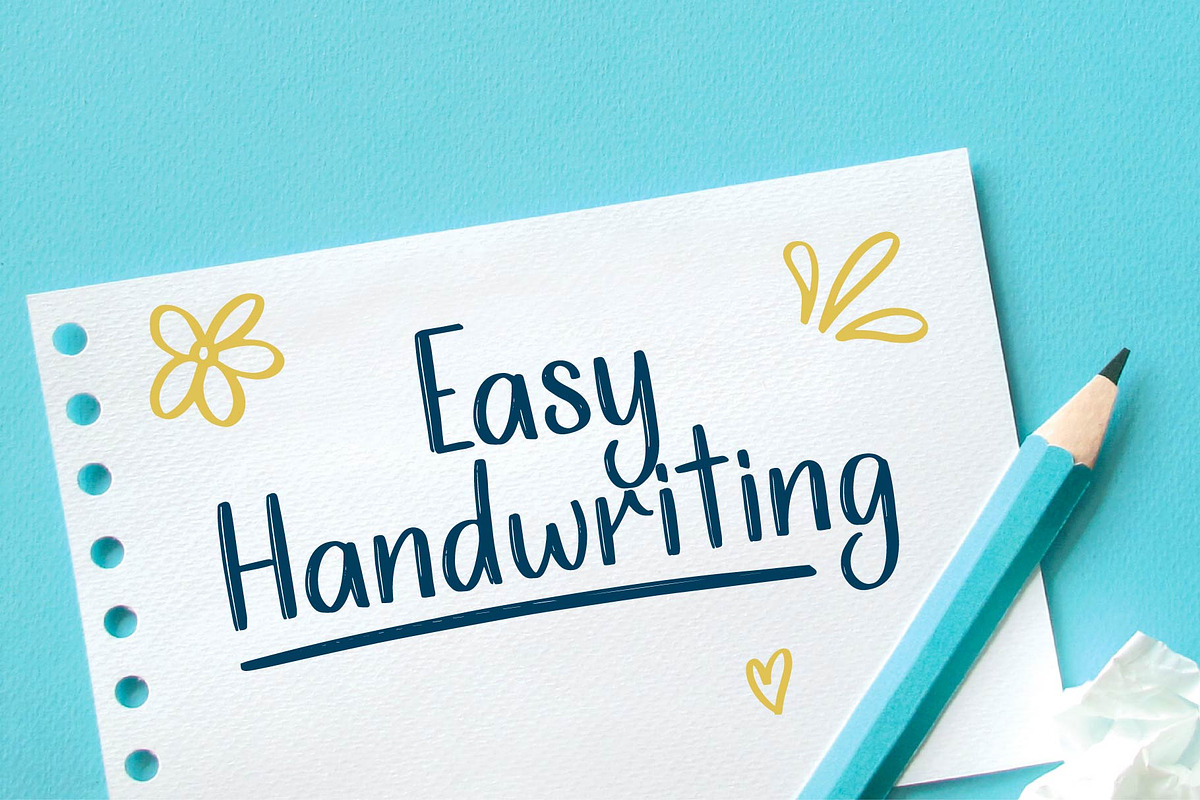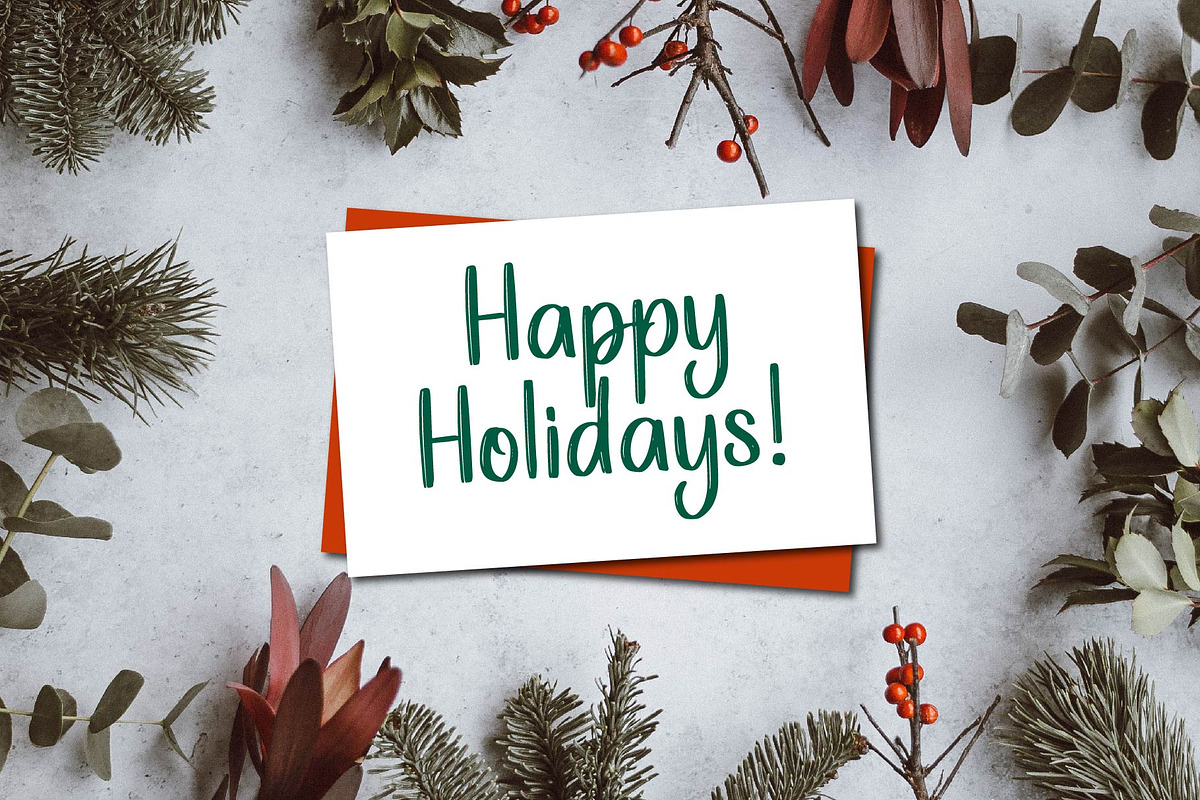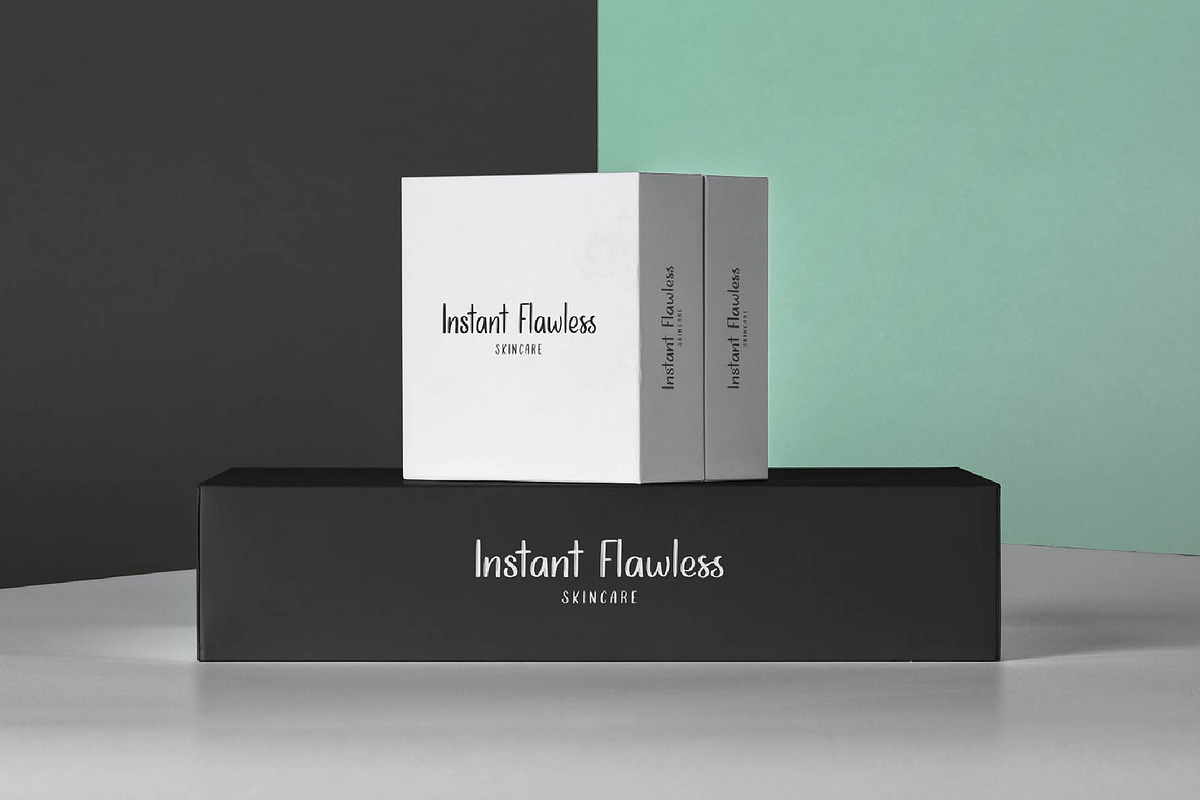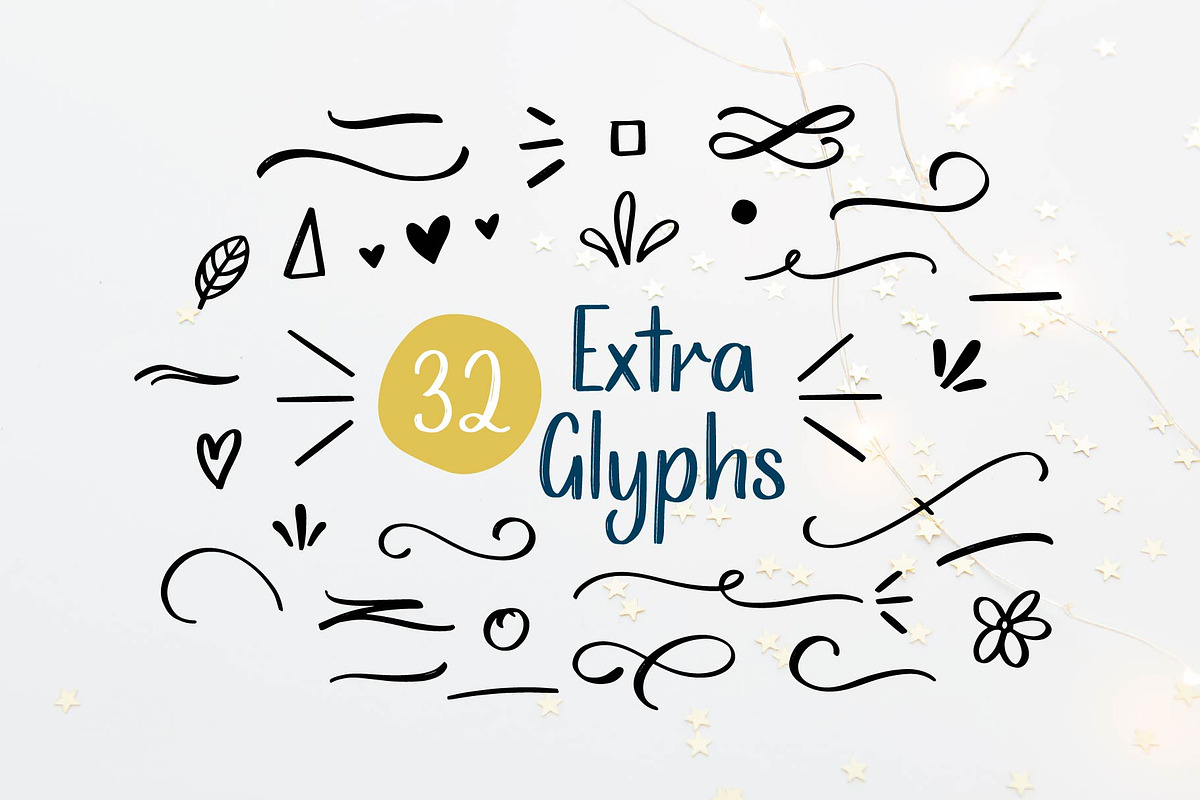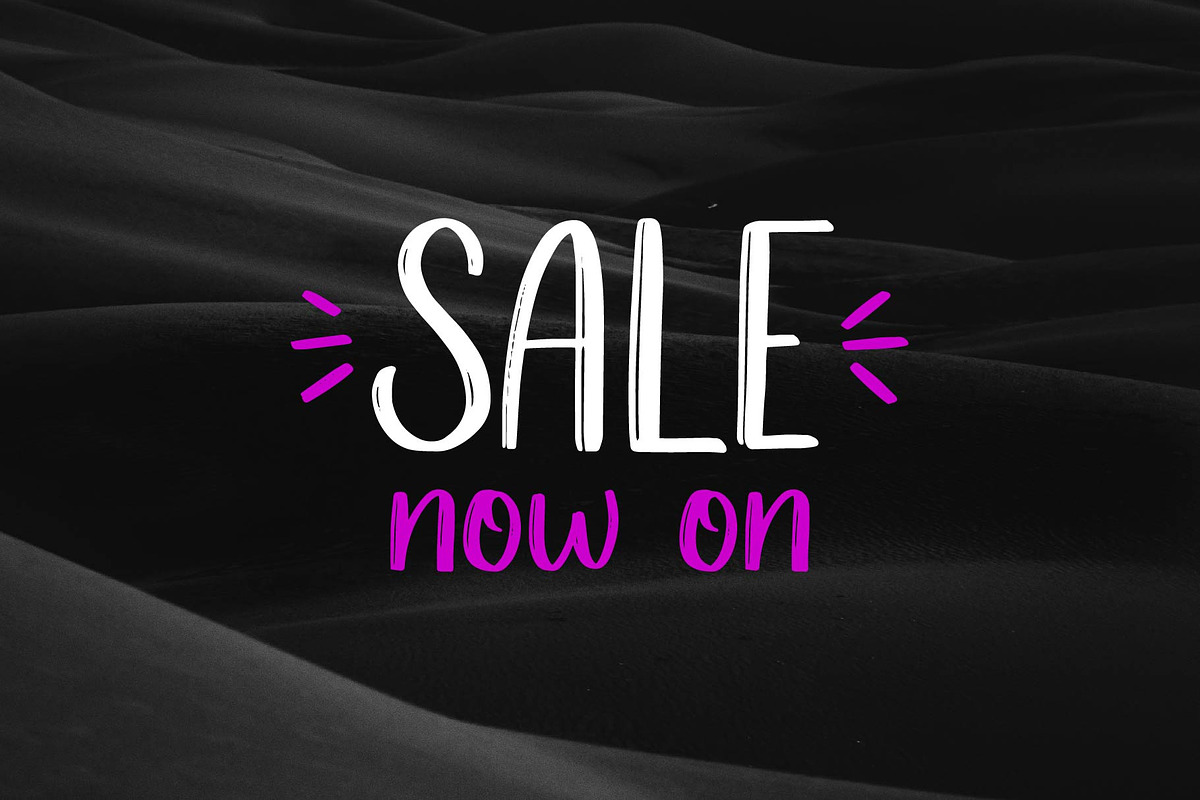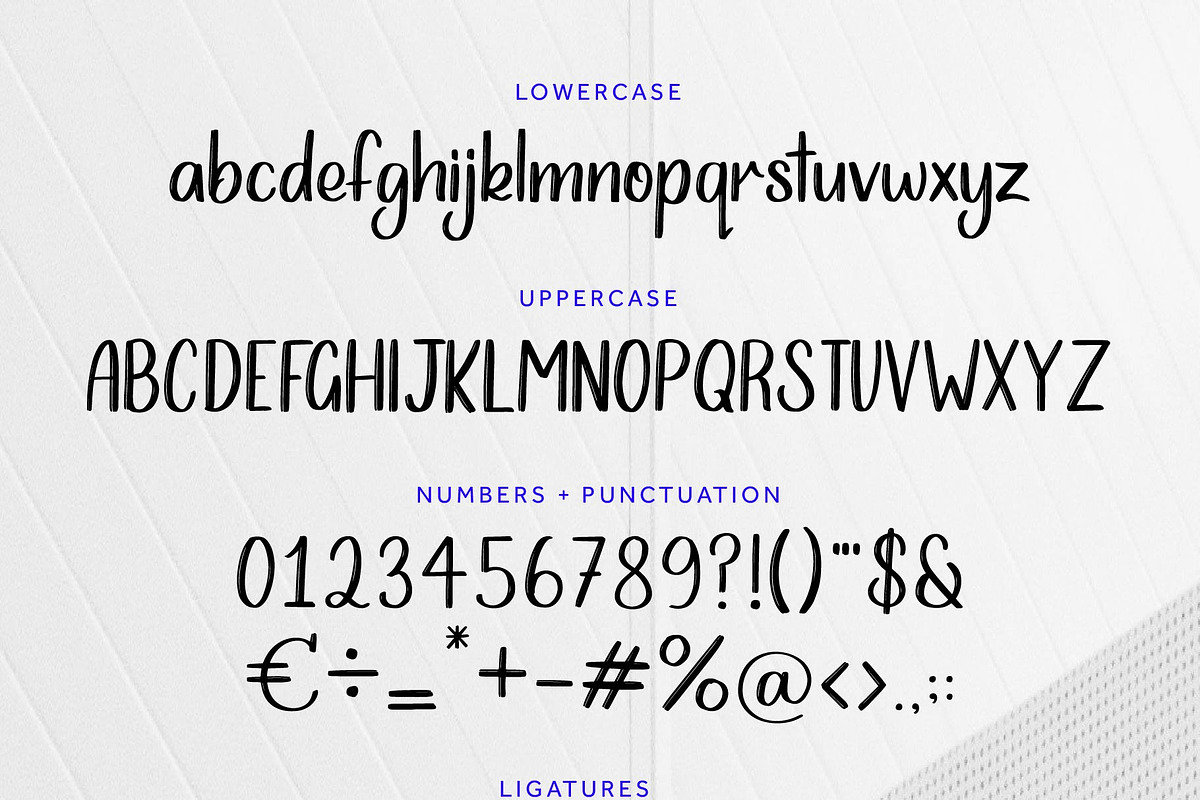
Miss Toffee Handwritten Font
Meet Miss Toffee, a friendly handwritten font packed with personality with subtle stroke texture. Miss Toffee is perfect for applications where legibility is priority - such as headings, packaging, banners, call-outs, wedding invitations, and homeware designs.
Miss Toffee OTFA handwritten font featuring uppercase & lowercase characters, punctuation, and ligatures.
Miss Toffee Extras OTFA bunch of handwritten extras to perfectly match Miss Toffee.